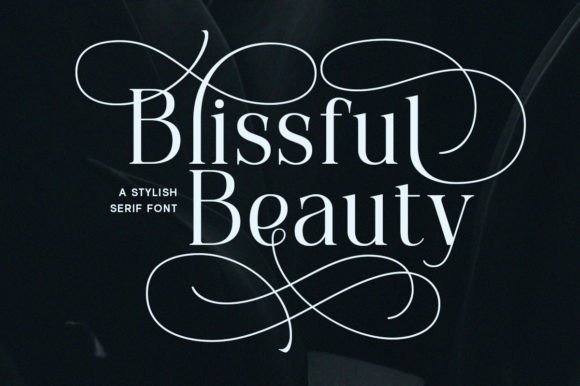
The Blissful Beauty Font: Elevate Your Designs with Elegance and Sophistication
Ah, the quest for the perfect font! I recall a particularly frustrating design project where I was tasked with creating an elegant wedding invitation. My client wanted a font that exuded luxury and refinement, but everything I tried seemed to fall flat. That was until I stumbled upon the Blissful Beauty font. ✨ Its stylish alternates and delicate swashes instantly captivated me, and I knew I had found the perfect fit. In this article, I’ll share my love for this beautiful serif font, its features, and how to make the most of it in your designs.
• ✅ Elegant and sophisticated design, perfect for high-end branding and luxury projects
• ✅ Stylish alternates and delicate swashes add a touch of refinement to any design
• ✅ Versatile and suitable for a range of design projects, from wedding invitations to business cards
• ⚠️ Some users may find the font a bit too ornate for certain design projects
• ⚠️ Limited use of font in body text, as it’s more suited for headings and titles
The Story Behind Blissful Beauty
Blissful Beauty was designed with the intention of creating a font that exudes elegance and sophistication. The designer aimed to create a font that would be perfect for high-end branding, luxury projects, and elegant wedding invitations. With its stylish alternates and delicate swashes, Blissful Beauty is sure to captivate audiences with its luxurious appeal.
Q: Is Blissful Beauty suitable for body text?
A: While Blissful Beauty is a beautiful font, it’s more suited for headings and titles. For body text, a simpler font may be more readable.